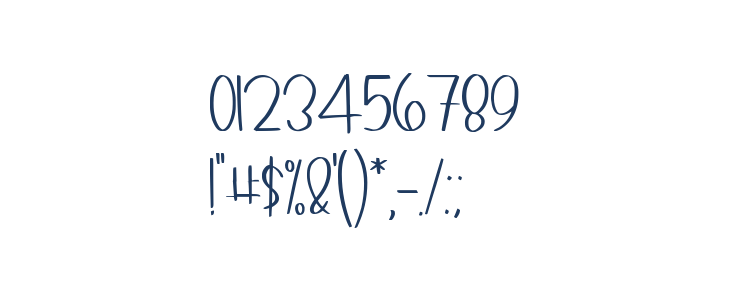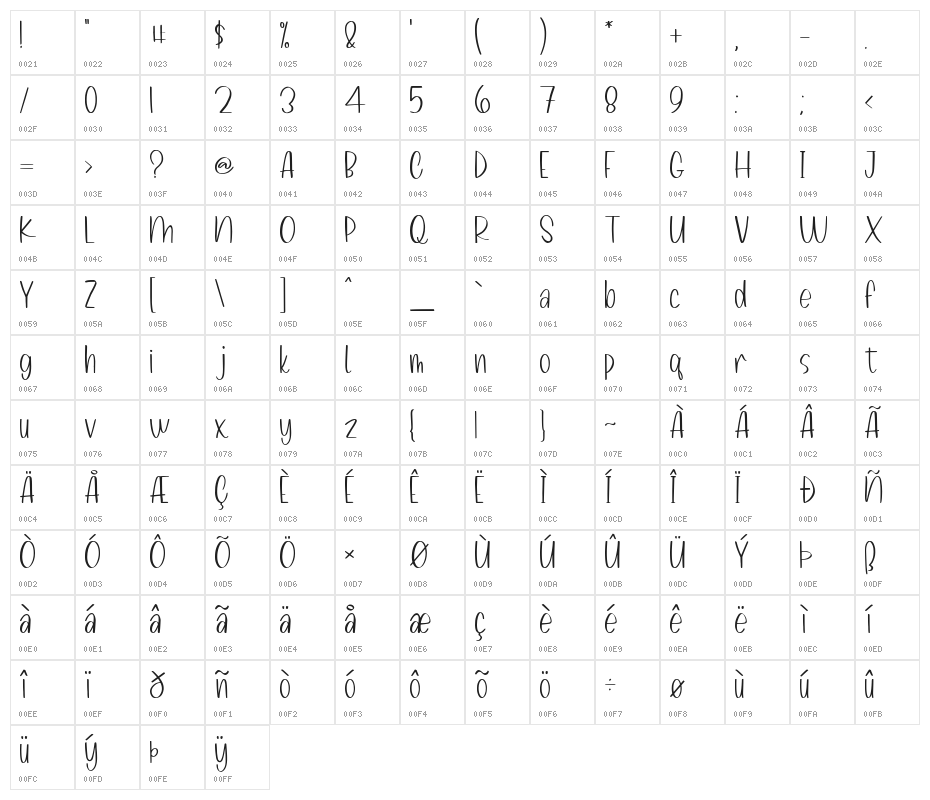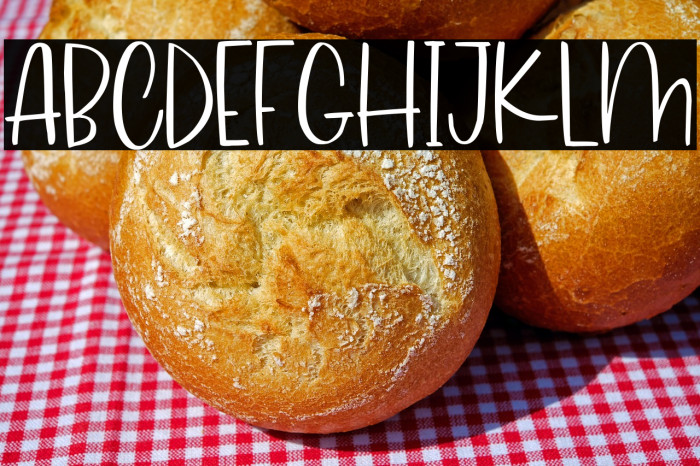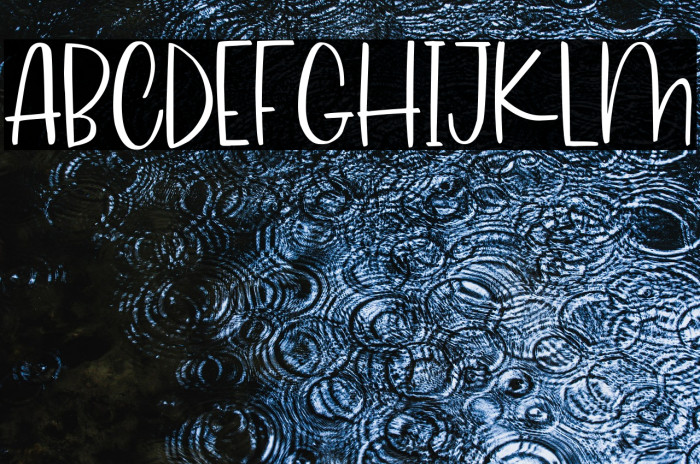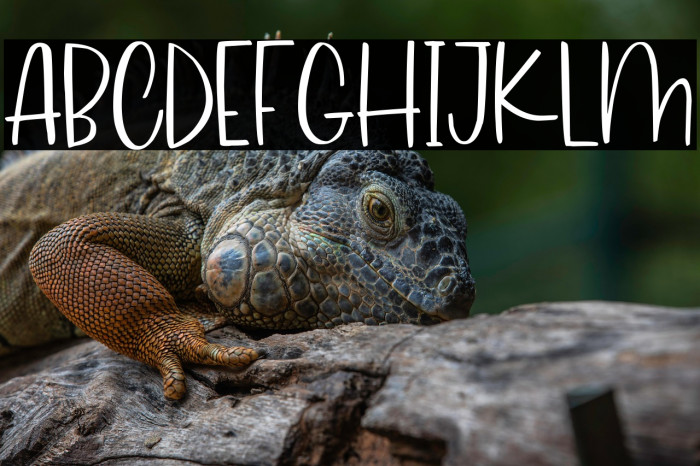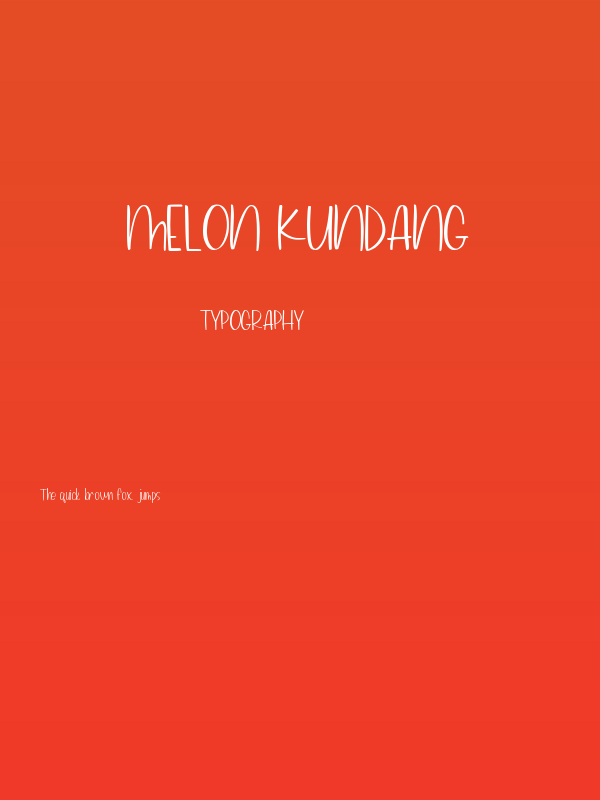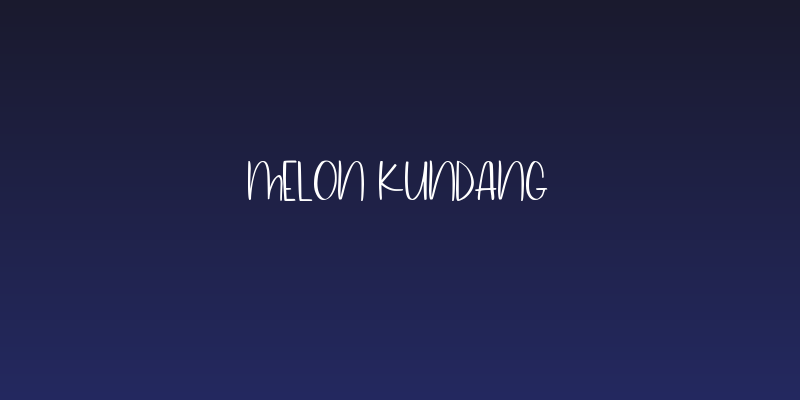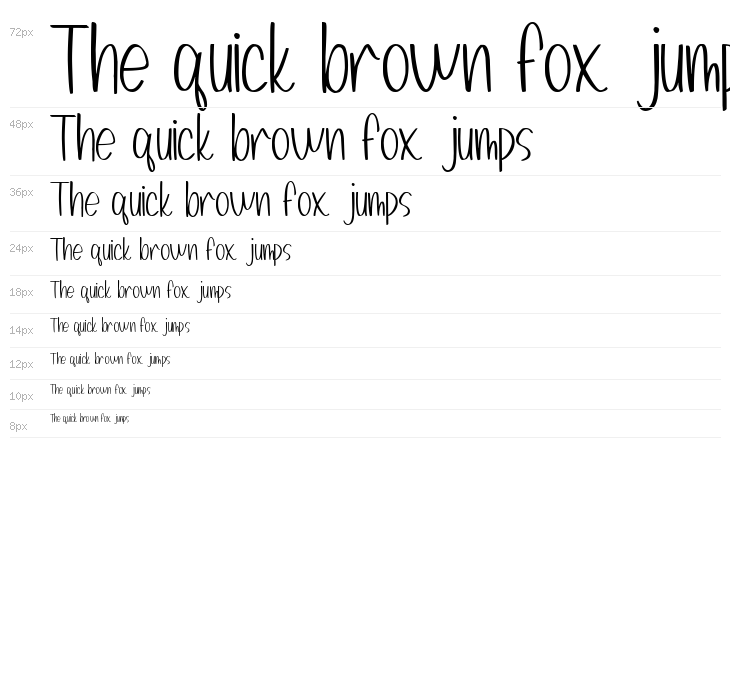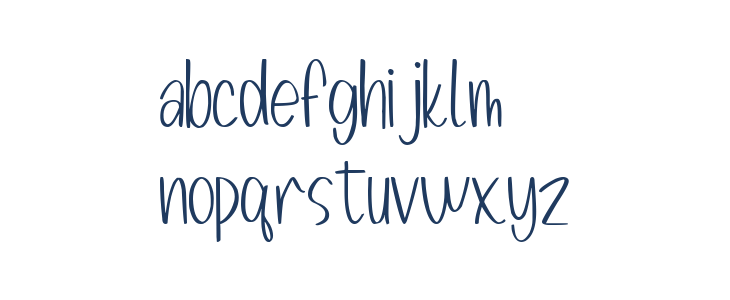
Melon Kundang Font
Melon Kundang Description
This font features a playful and whimsical handwritten style, characterized by its tall, narrow letters with a slight slant. The strokes are smooth and consistent, giving it a casual yet polished appearance. The uppercase and lowercase letters maintain a uniform height, contributing to its cohesive look. Numbers and special characters are designed with the same playful aesthetic, making them blend seamlessly with the alphabet. The overall design is approachable and friendly, perfect for projects that require a personal touch.
Overall StyleCasual
Use CaseHeadlines, Logos, Social Media
Proposed ProjectsIdeal for greeting cards, children's books, playful branding, and social media graphics.